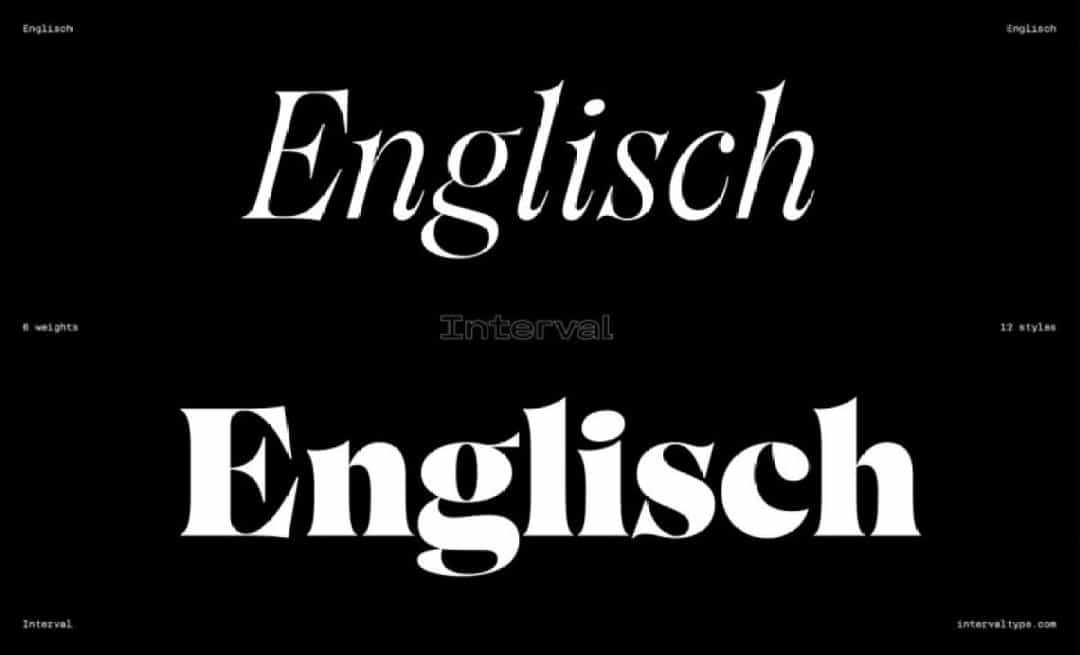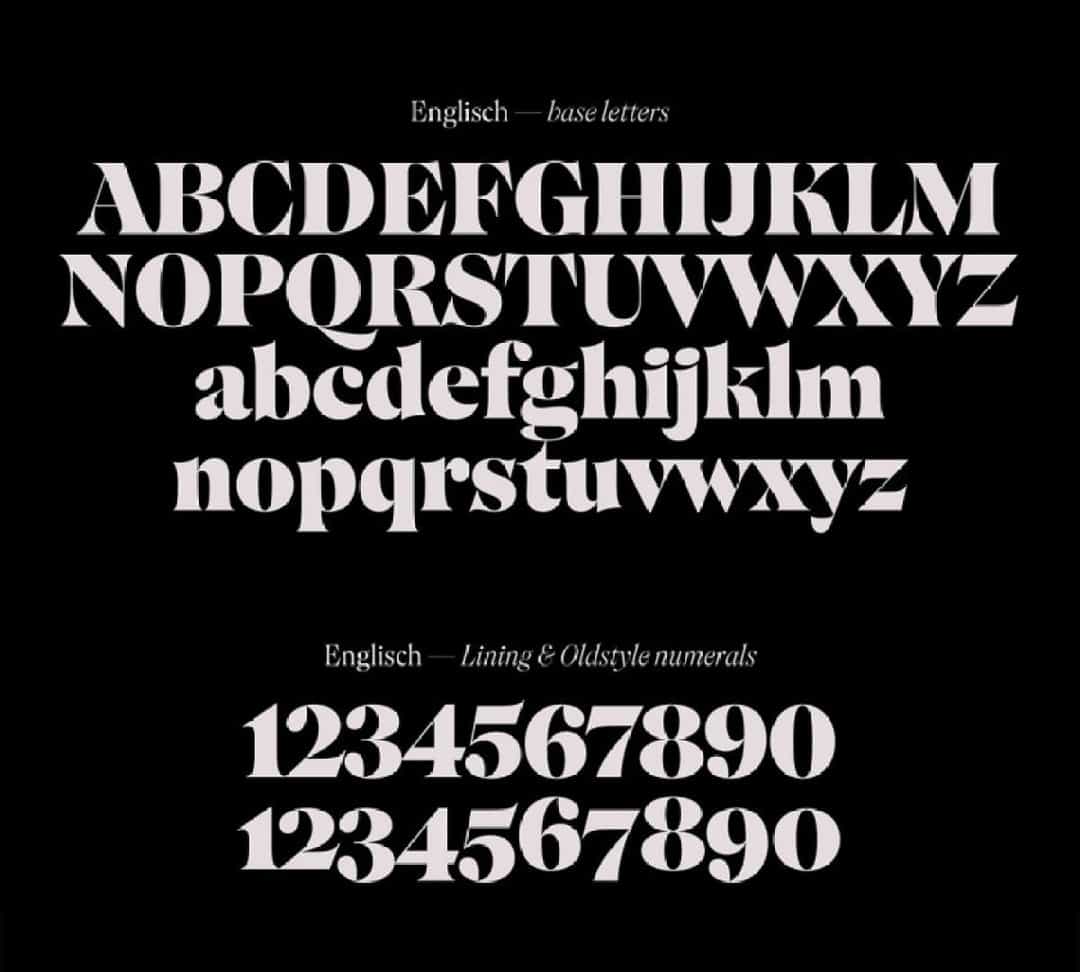
Englisch Font is a serious yet playful serif font reminiscent of 17th and 18th century English fonts like Fell Type and Caslon from this era. Not a revival but more an unintentional representation of ideas reflective of English design from that era, such as eccentricities like horizontal contrast and free shapes that were characteristic. Englisch attempts to provide a link between modernity and traditionalism.